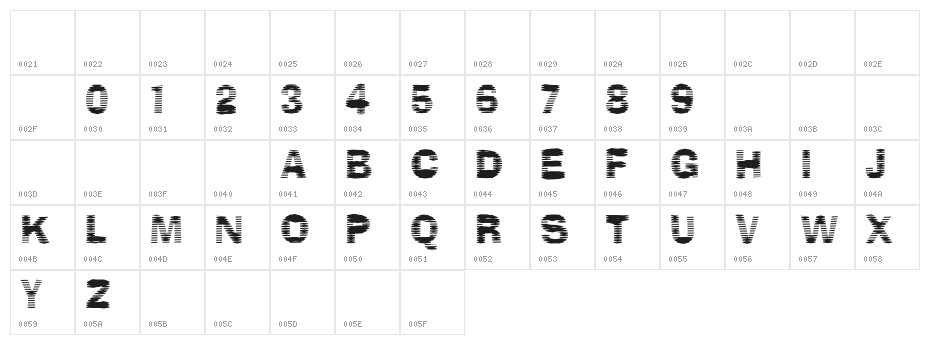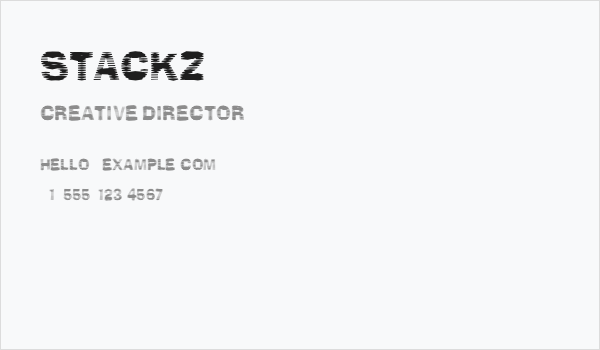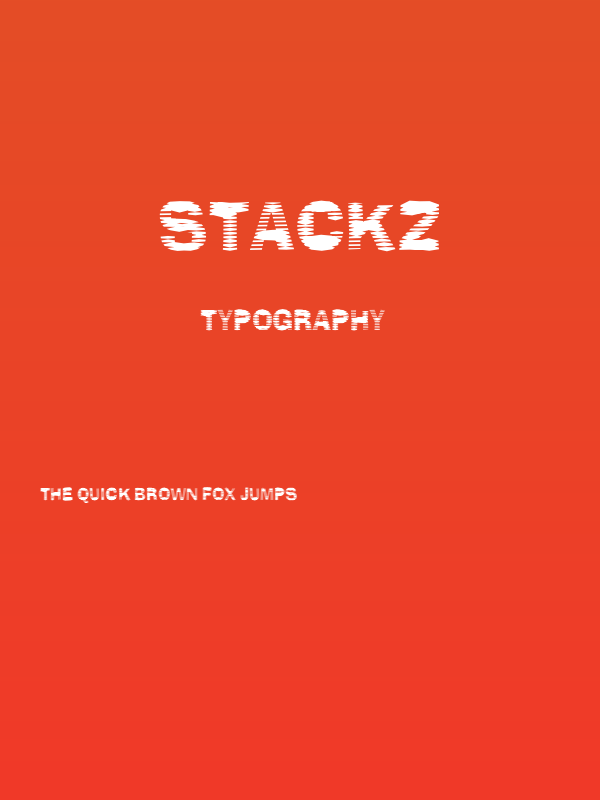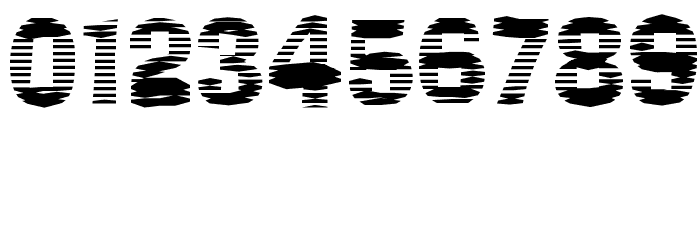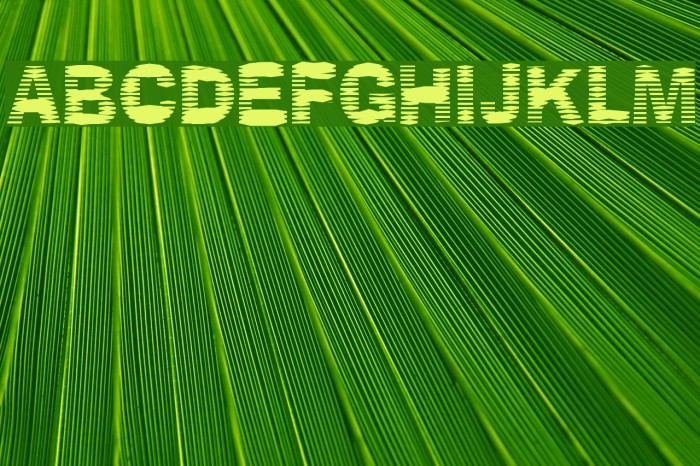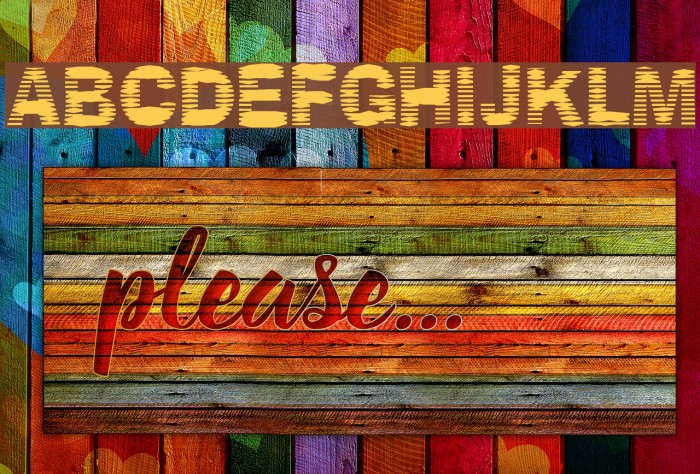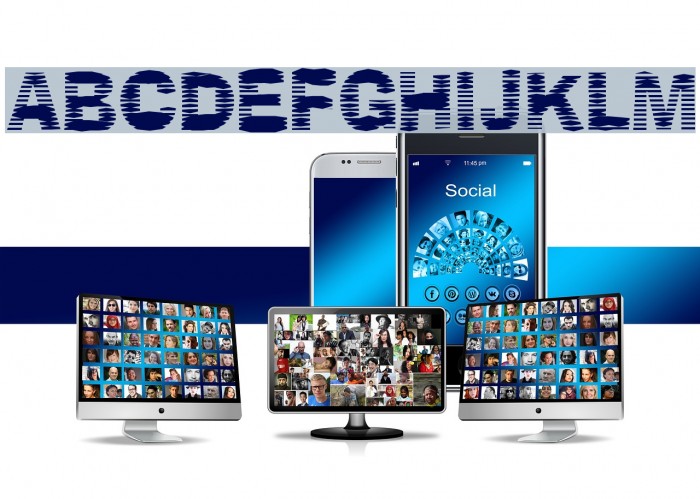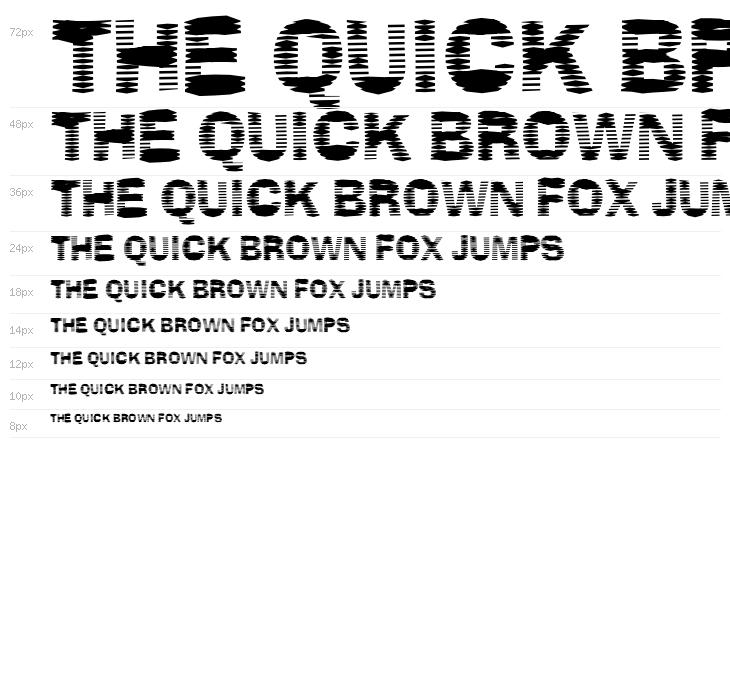
Stackz Font
This font features a bold, striking design with a unique horizontal stripe pattern that cuts through each character, creating a sense of movement and energy. The uppercase letters are robust and impactful, making them ideal for attention-grabbing headlines or titles. The numbers follow the same design, ensuring consistency across different types of content. The font's distinct style is both modern and edgy, suitable for projects that require a contemporary and dynamic look. Its boldness and unique pattern make it stand out, while the consistent spacing ensures readability despite the intricate design.
| Proposed Projects | Ideal for posters, album covers, sports branding, and any project needing a bold, modern touch. |